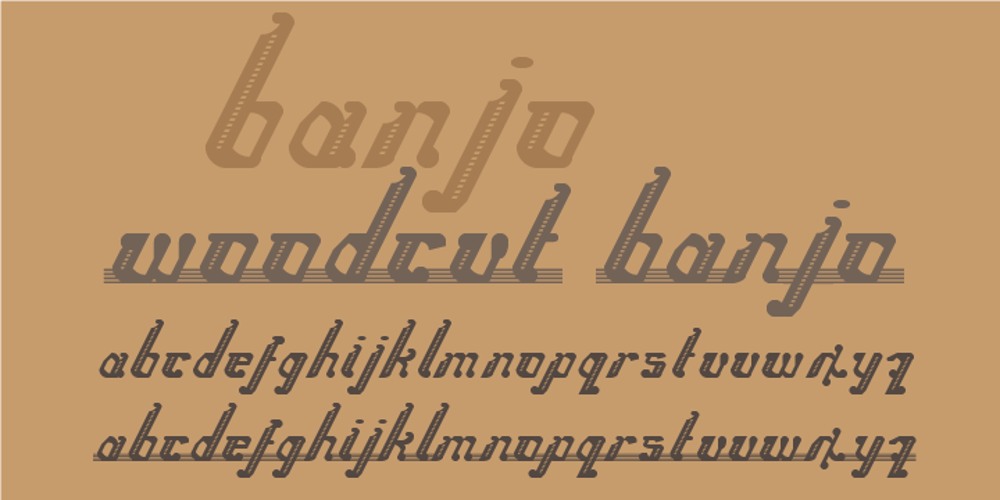
Banjo Font Family was designed by Wilson Thomas and published by Funk King. Banjo contains 2 styles and family package options. Banjo and Woodcut Banjo are whimsical fonts with a hand-crafted feel. Woodcut is the “underlined” version.